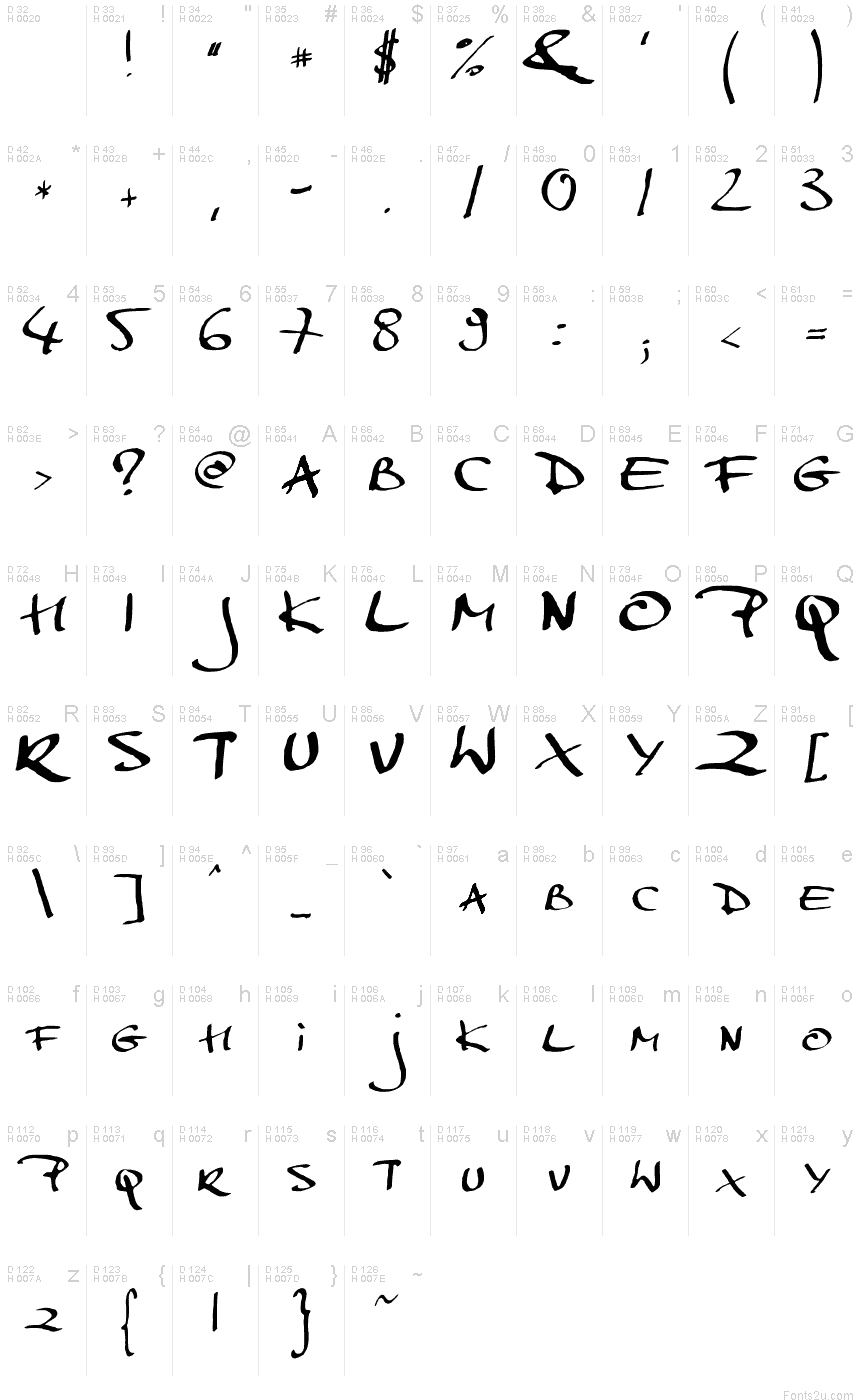
MarkerScript by Aga Silva is a free brush script with restless, angular lettering and broad changes in stroke width. Its sharp entry strokes, pinched joins, uneven proportions, and long slashing gestures make the letters look quickly painted, with blunt pools of ink beside needle-fine points.
An independent music label or streetwear brand could use its raw, assertive shapes as part of a youthful identity with a rough, immediate campaign voice. It also suits festival posters and album covers, where the sweeping forms can echo energetic illustration or photography. Beverage packaging and event merchandise offer another convincing setting for its handmade edge.